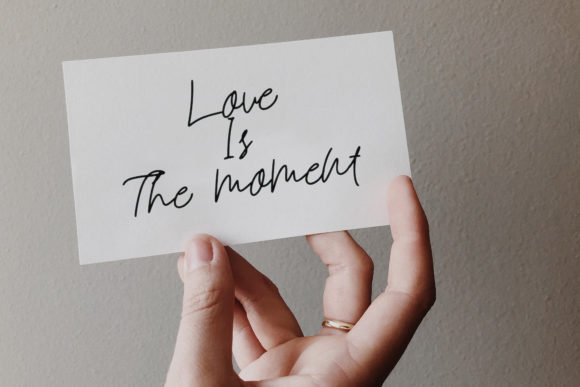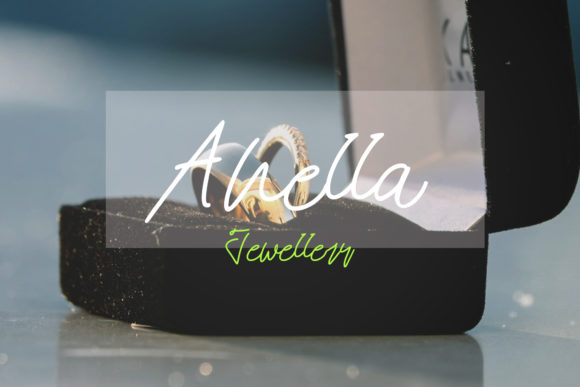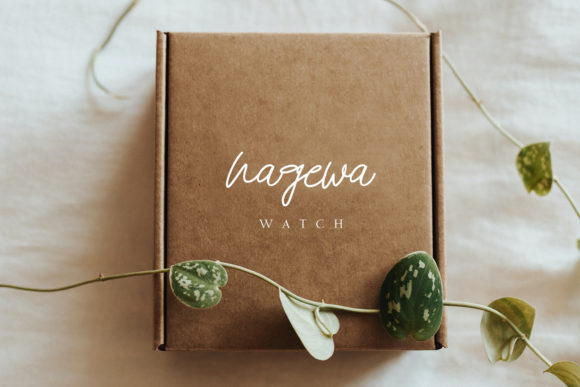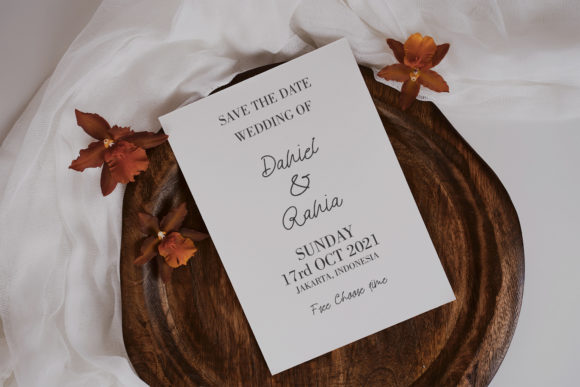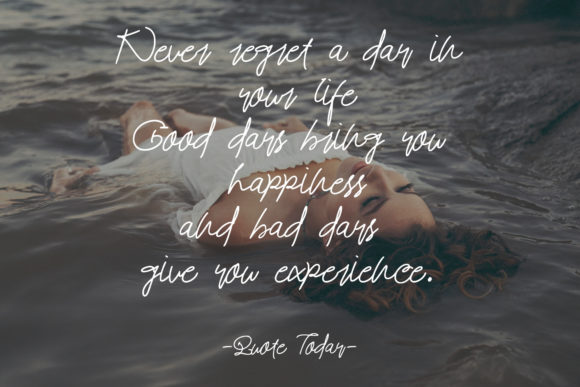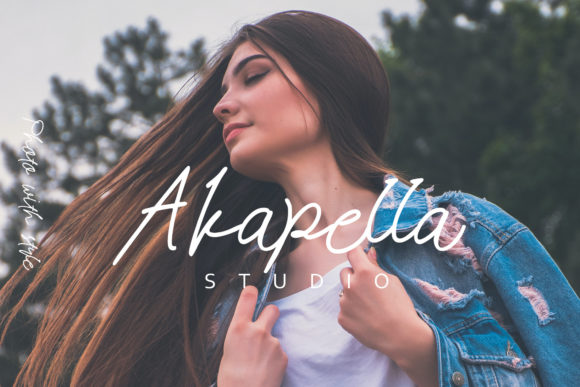
Galone Font: Elevate Your Designs with Elegance and Sophistication
In the world of typography, fonts play a crucial role in conveying the tone and personality of a design. For those seeking a script font that embodies elegance and class, Galone is an excellent choice. This lovely and delicate font is specifically crafted to add a touch of sophistication to your designs, making it perfect for crafters, designers, and anyone looking to elevate their visual creations.
The Beauty of Galone Font
Galone is a script font that boasts a unique and refreshing look, setting it apart from other fonts in its category. Its delicate strokes and elegant curves make it an ideal choice for designs that require a touch of sophistication. Whether you’re working on a wedding invitation, a fashion brand, or a luxury product, Galone font is sure to impress.
Key Features of Galone Font
- Elegant and Delicate: Galone font features delicate strokes and elegant curves, making it perfect for designs that require a touch of sophistication.
- Script Style: Galone is a script font that adds a personal and handwritten touch to your designs.
- Refreshing Look: The font’s unique and refreshing look makes it stand out from other script fonts.
- Highly Versatile: Galone font can be used for a wide range of designs, from wedding invitations to fashion brands and luxury products.
Uses of Galone Font
Galone font is highly versatile and can be used for various design projects. Here are some of the most popular uses of this beautiful font:
- Wedding Invitations: Galone font is perfect for wedding invitations, adding a touch of elegance and sophistication to your designs.
- Fashion Brands: The font’s elegant and delicate style makes it an excellent choice for fashion brands, particularly those that specialize in luxury products.
- Luxury Products: Galone font is ideal for designs that require a touch of sophistication, such as luxury product packaging, branding, and advertising.
- Stationery: The font can also be used for stationery, including letterheads, business cards, and thank-you cards.
Tips for Using Galone Font
To get the most out of Galone font, here are some tips to keep in mind:
- Pair with Other Fonts: Galone font pairs well with other fonts, particularly sans-serif fonts. Experiment with different font combinations to find the perfect match.
- Use for Headings: Galone font is perfect for headings and titles. Use it to add a touch of elegance and sophistication to your designs.
- Adjust Font Size: Experiment with different font sizes to find the perfect balance for your design.
In conclusion, Galone font is a lovely and delicate script font that exudes elegance and class. Its unique and refreshing look makes it perfect for designers and crafters seeking to add a touch of sophistication to their designs. With its highly versatile style, Galone font can be used for a wide range of design projects, from wedding invitations to fashion brands and luxury products. By following the tips outlined above, you can get the most out of Galone font and elevate your designs to the next level.